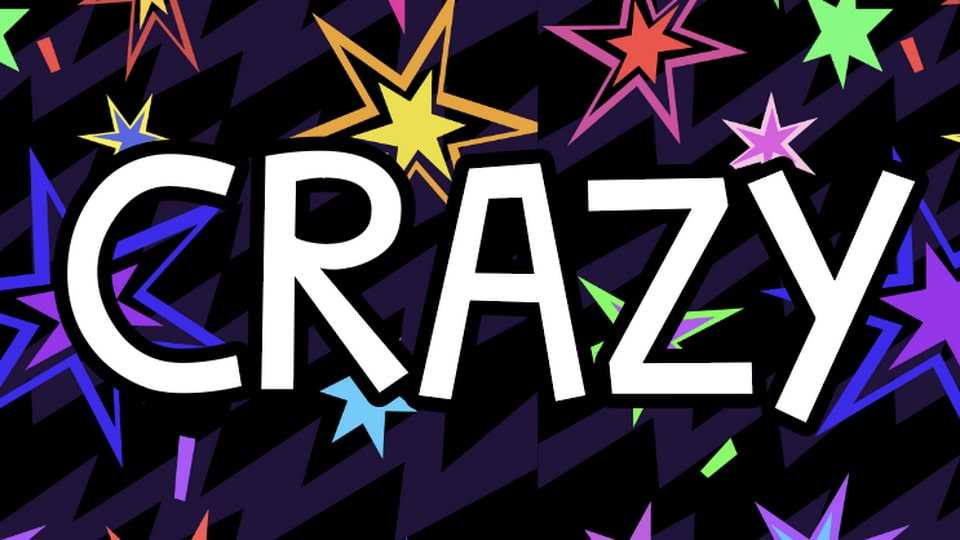
Download Crazy font, a comic and wacky display typeface, ideal for adding a playful touch to any project and creating eye-catching designs. Crazy is a corporate typeface, everyone can use it for YouTube videos, thumbnails, etc.
Designer: Liam Butler